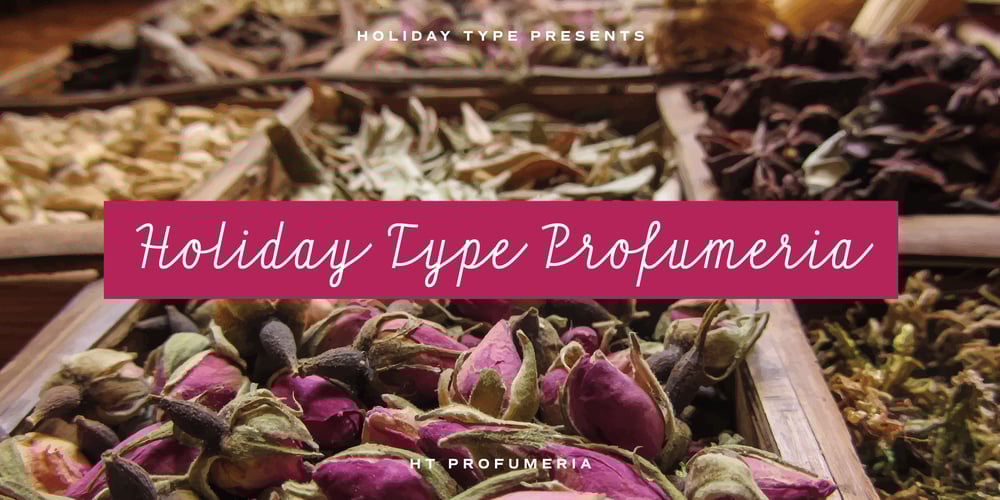
HT Profumeria Font Family was designed by Ryoichi Tsunekawa and published by Dharma Type. HT Profumeria contains 1 styles and family package options. HT Profumeria is a monoline and connected font with a thin line and a unique tail. Its simple and retro look is the best script for branding and packaging, but it may also be useful for headlines, publishing and advertising. Holiday Type Project offers retro hand drawing scripts. Inspired by retro script on shopfront lettering, wall paint advertisements in Italy around 1950s. Check out the script fonts from Holiday Type!